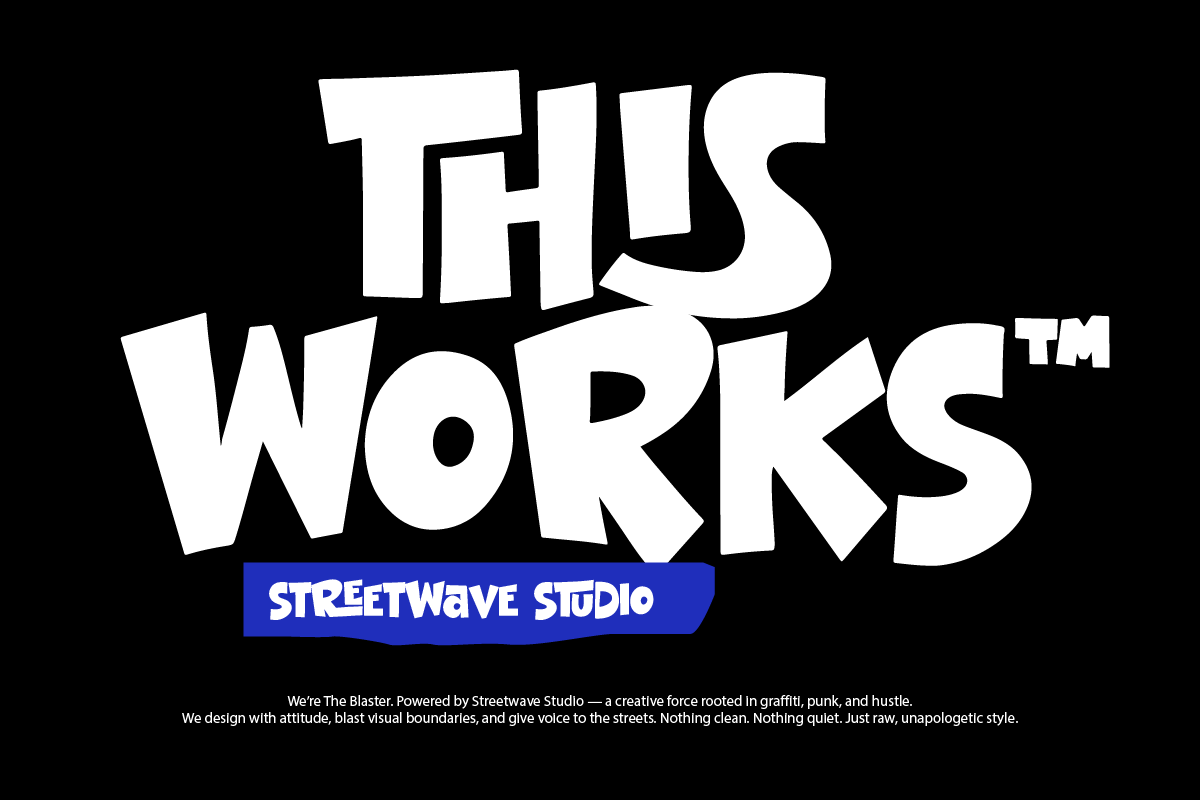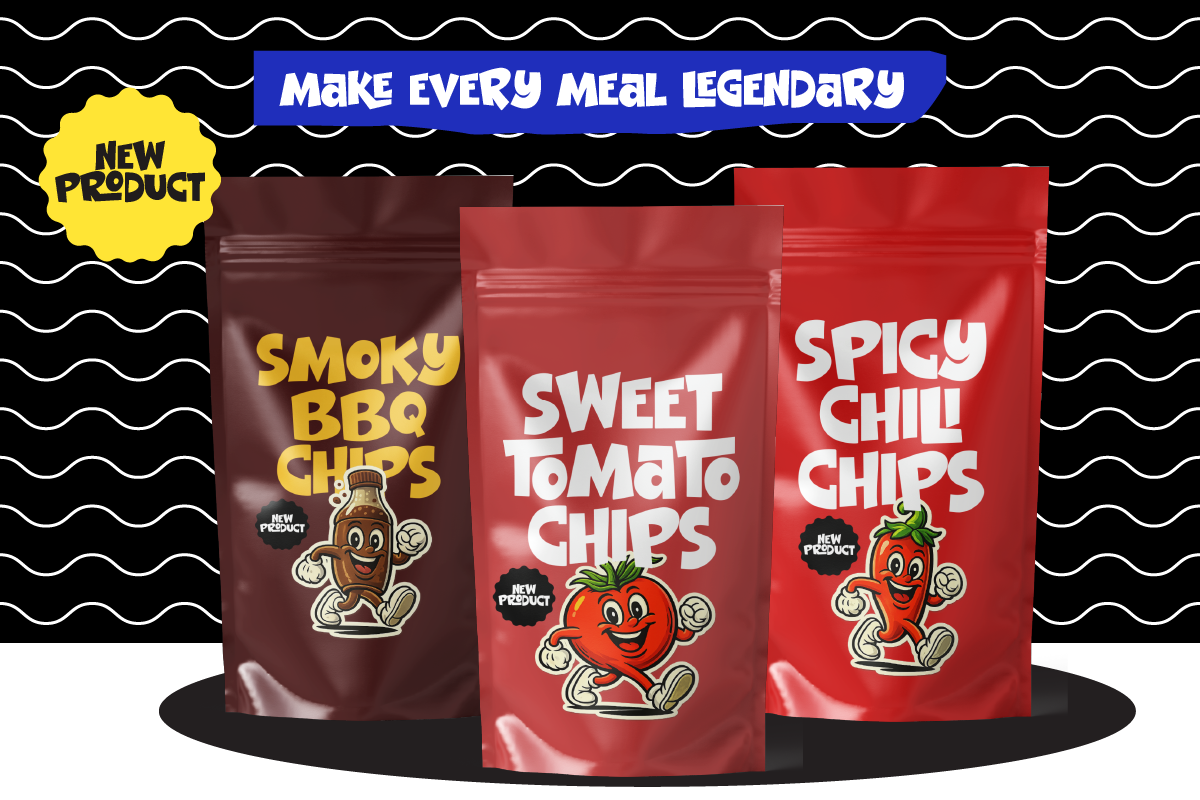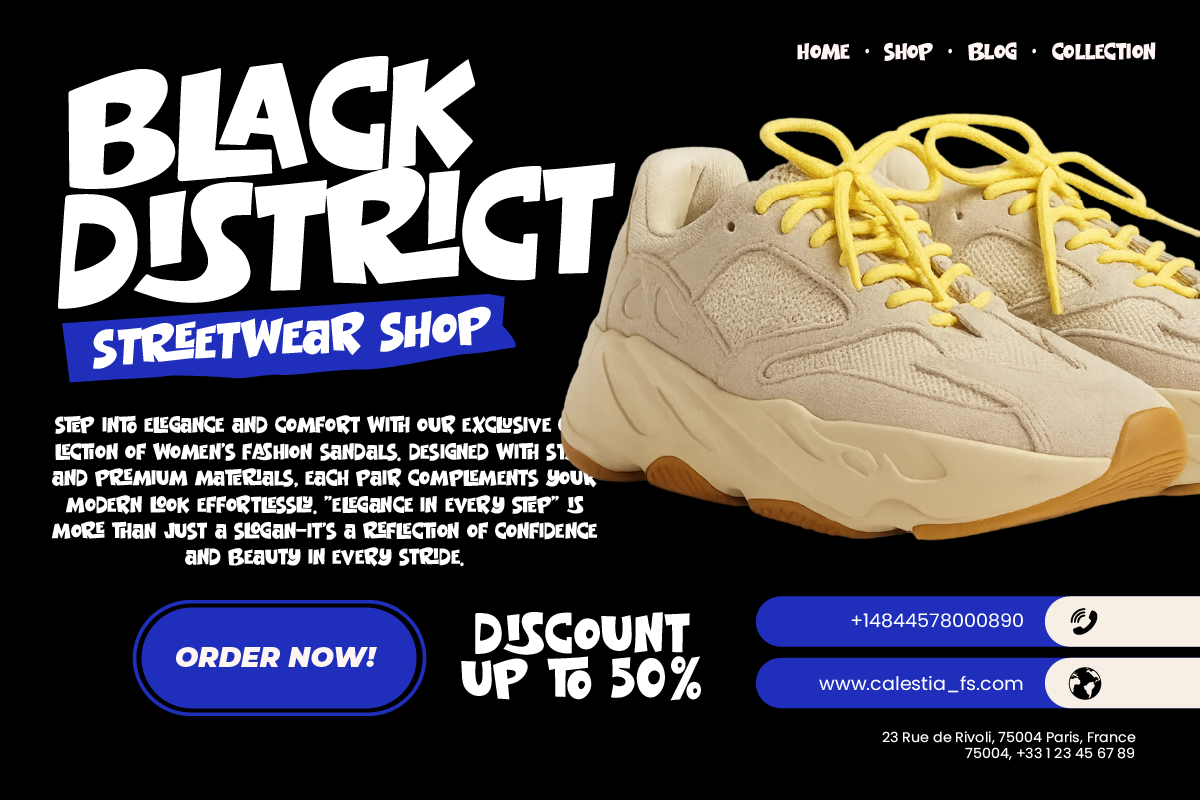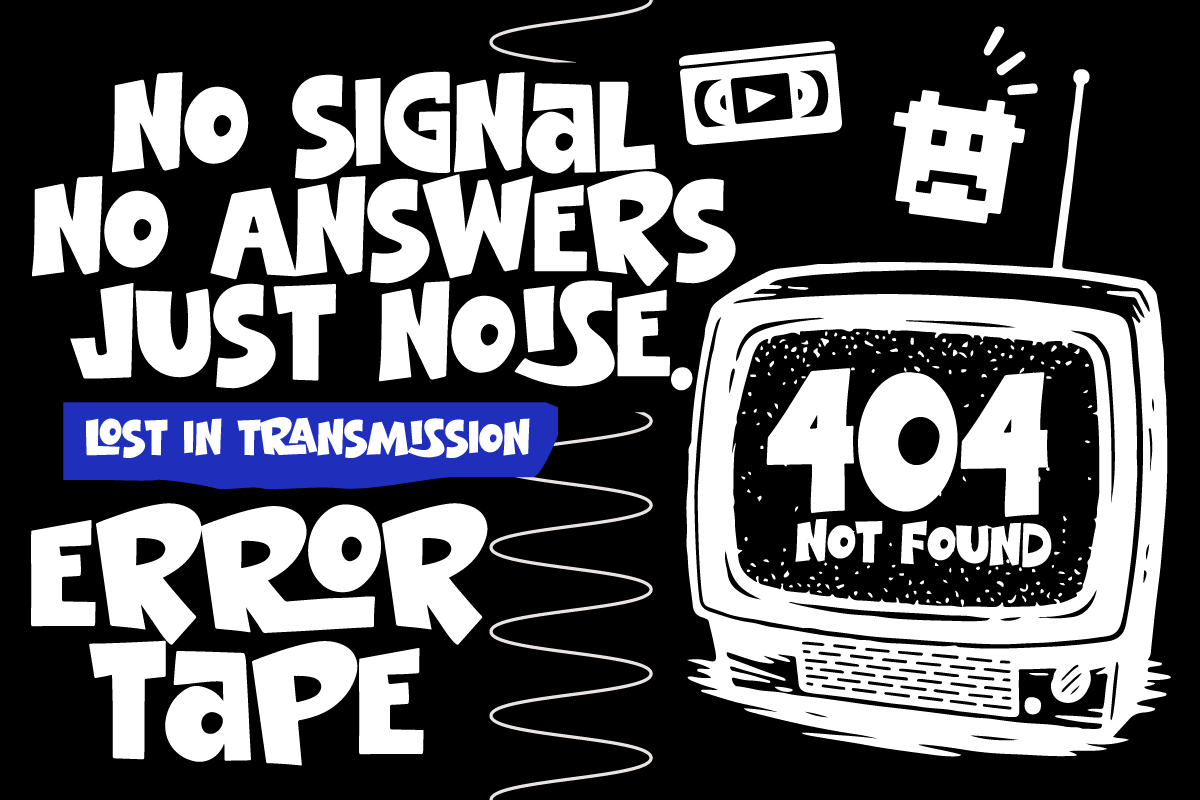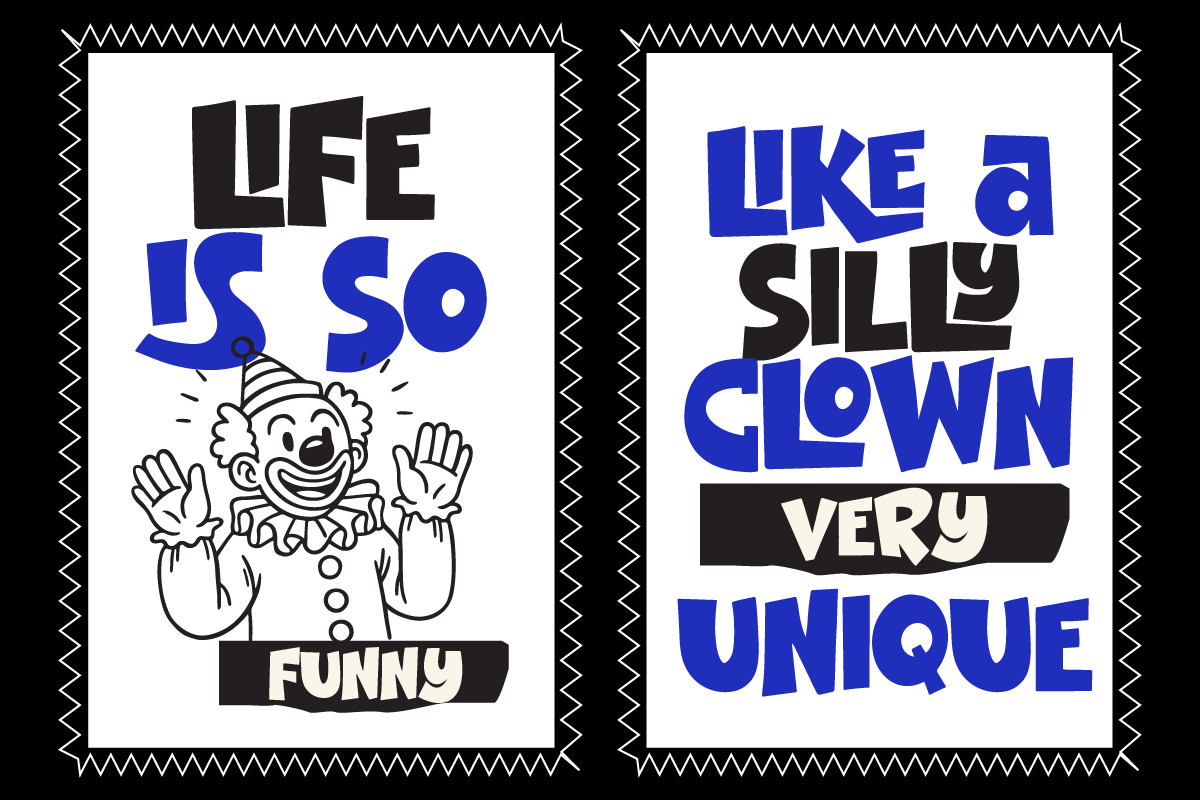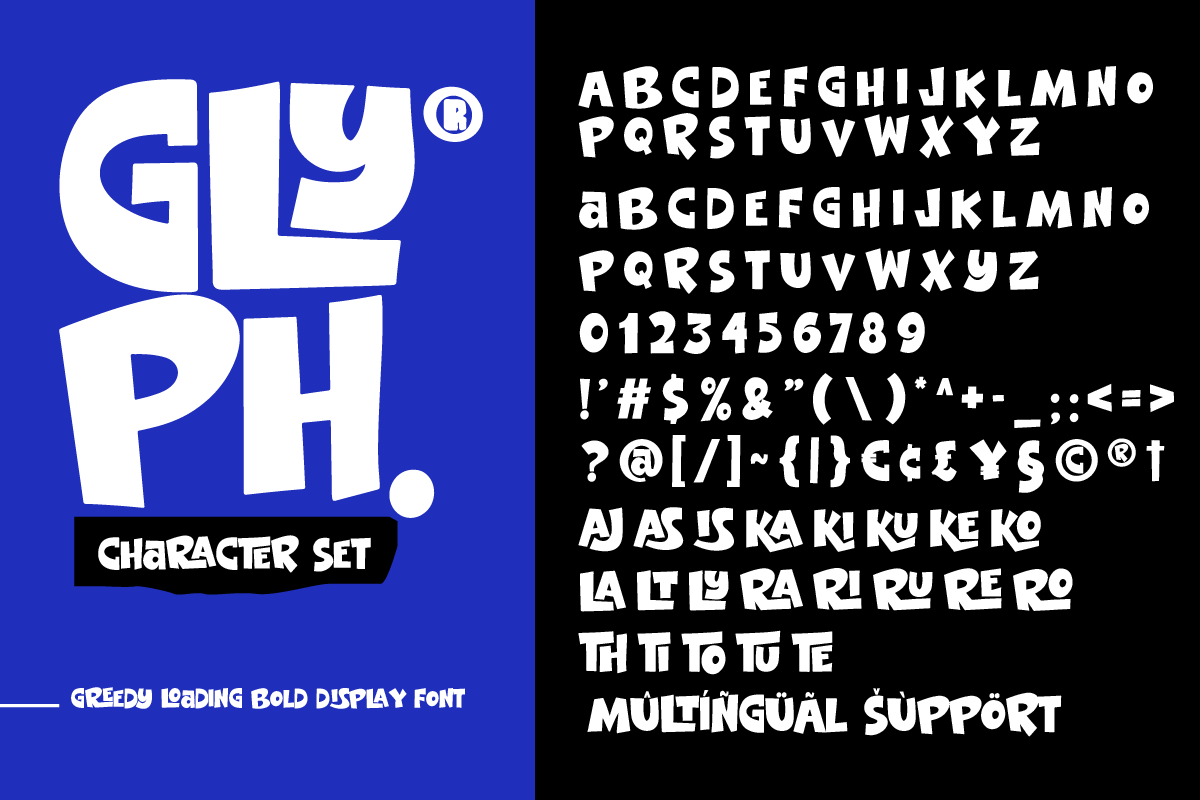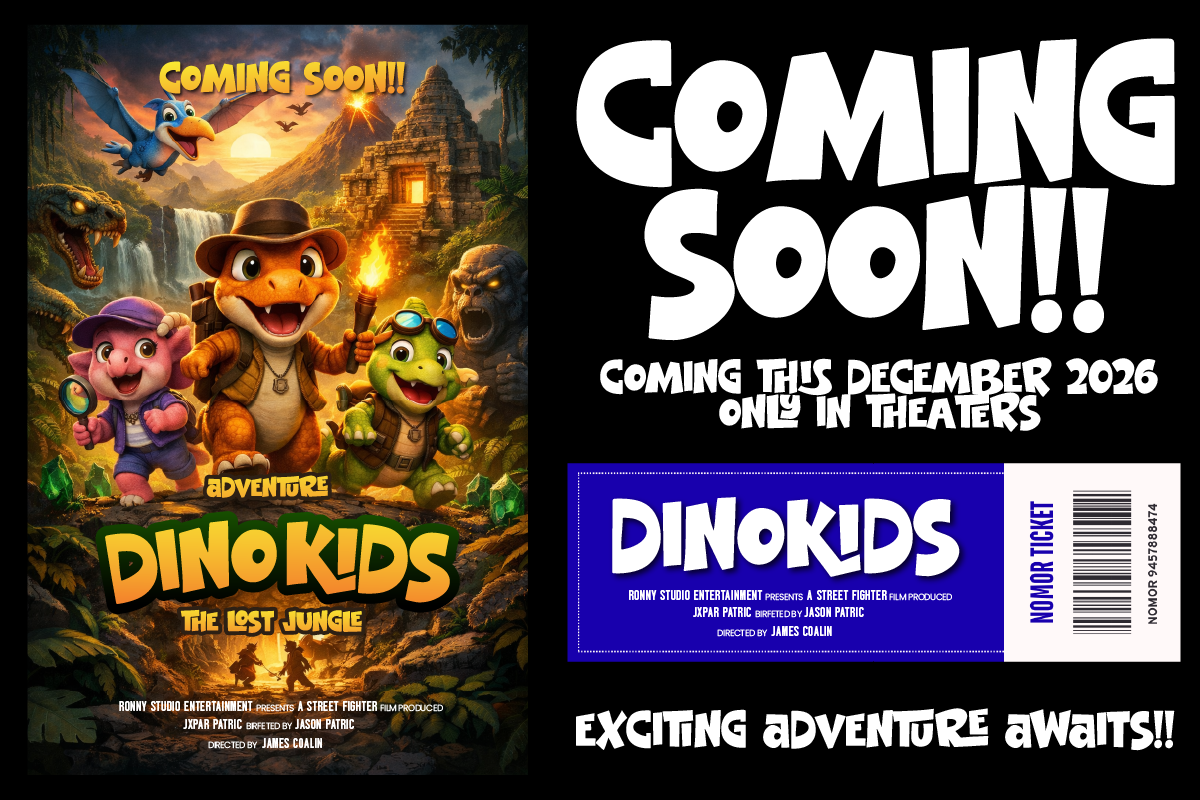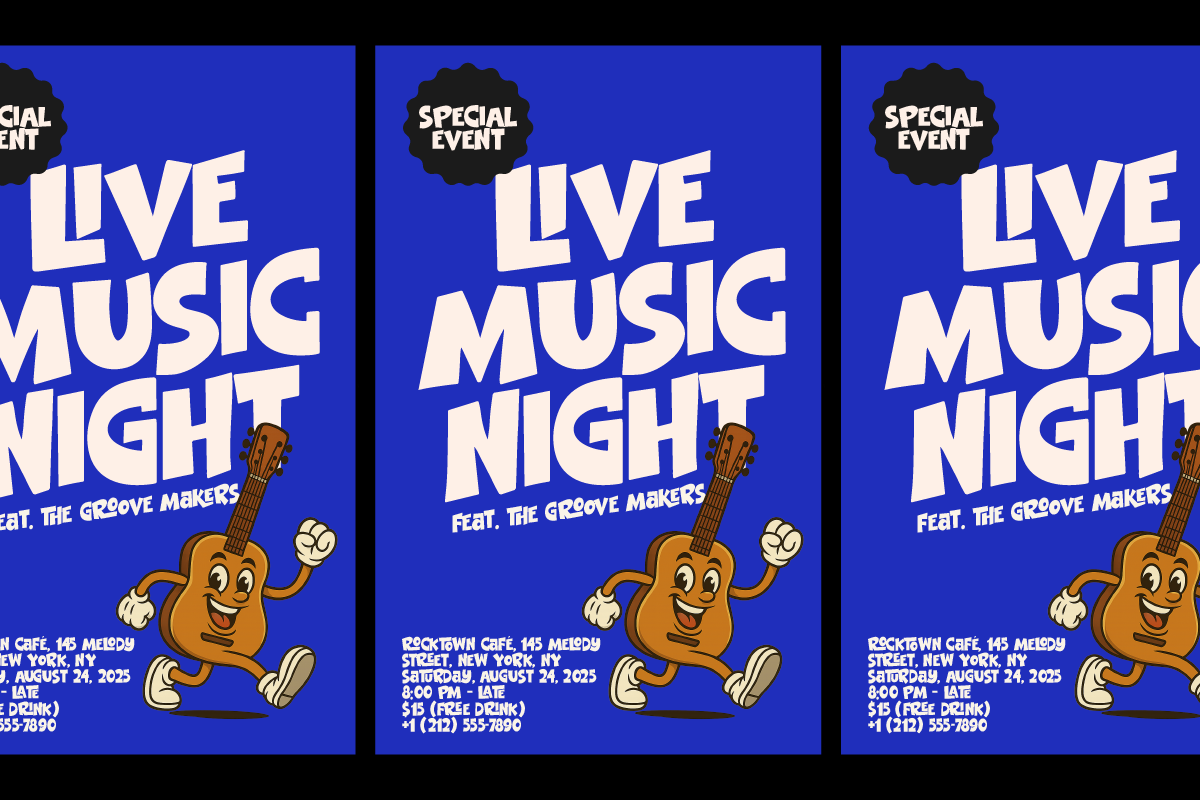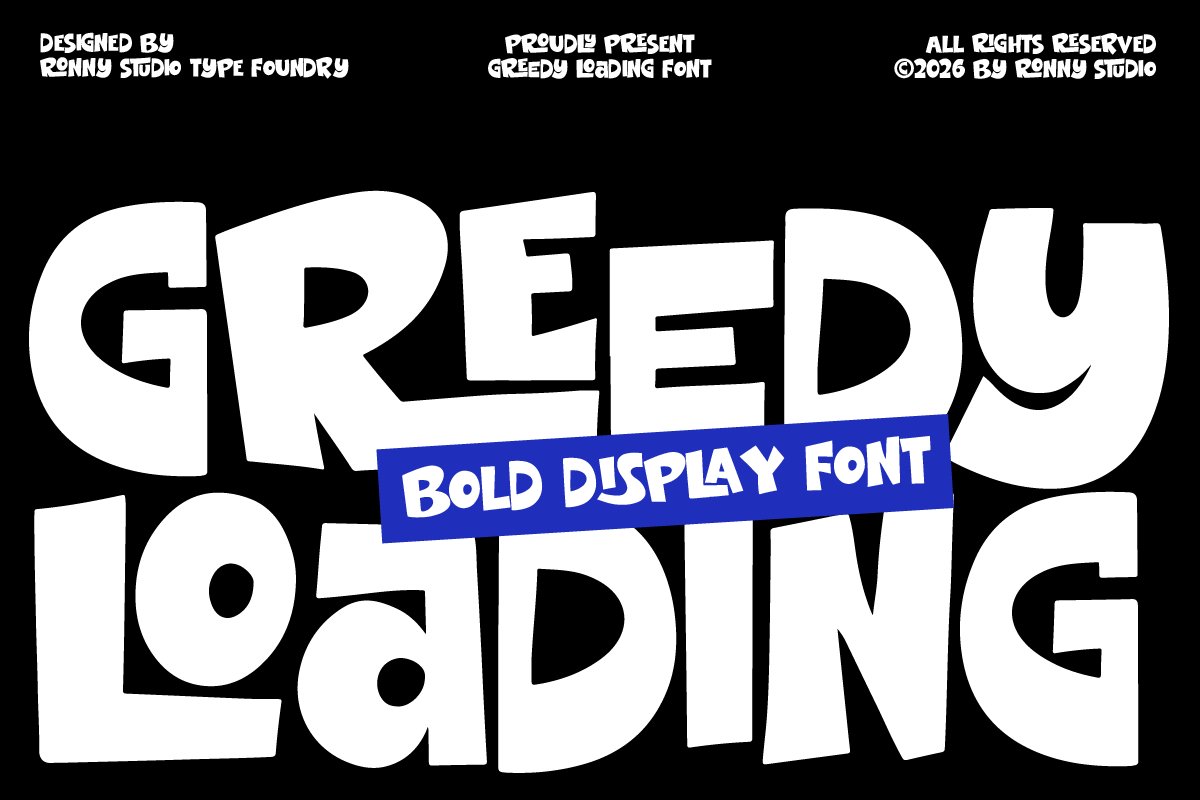
Greedy Loading Bold Display Font
Greedy Loading is a bold display font with a chunky, playful, and energetic style. Designed to grab attention instantly, this font brings a fun yet strong personality to any design. Its thick and expressive letterforms create a modern street and retro-inspired feel, making it highly versatile for creative projects.
- Bold display style
- Playful and expressive letterforms
- Alternate & Ligature
- Posters, flyers, and event promotions
- Branding and logo design
- Streetwear and merchandise
- Food & product packaging
- Social media graphics
- Retro and playful design projects